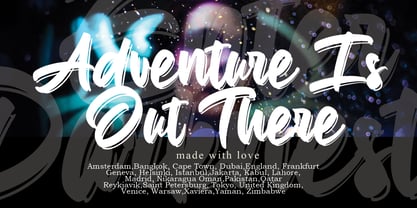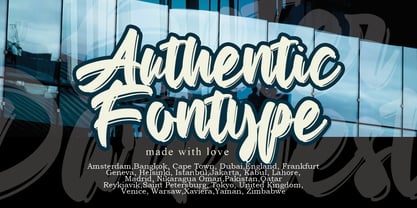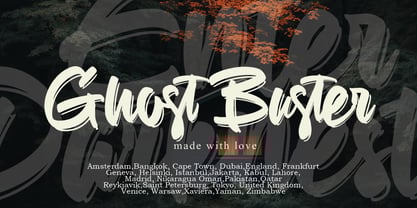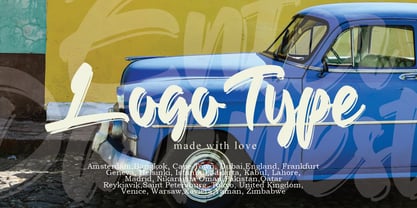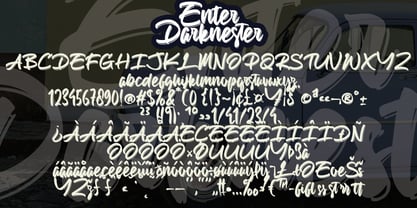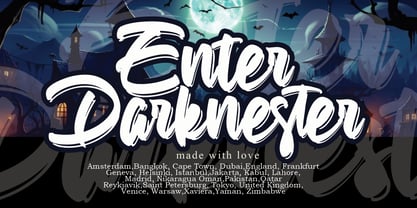
Enter Darknester
by Pineungtype misinklab
The Enter Darknester Font Family was designed by Beni Saswita and published by Pineungtype misinklab. Enter Darknester contains 1 styles.
✨ Enter Darknester– Elegant Handwritten Script Font Hatim Sakamseh is an elegant handwritten script font inspired by natural handwriting and modern calligraphy. This font has a clean, smooth, and romantic feel, perfect for premium designs that need a personal and classy touch. Ideal for branding, logos, wedding invitations, photography, social media, and creative projects. 📁 What’s Included: Uppercase & lowercase letters Numbers & punctuation Easy installation (Windows & Mac) 💍 Perfect For: Signature logos & branding Wedding invitations & stationery Photography watermark Social media quotes & posts Posters, wall art & packaging Canva & Cricut projects 🌿 Font Style Features: Natural handwritten strokes Elegant & romantic script Smooth curves & stylish flow Modern signature look Professional & clean design 📥 Instant Digital Download This is a digital product, no physical item will be shipped. You can download the files instantly after purchase. 📌 License: ✔ Personal use ✔ Commercial use ✖ Reselling or redistributing the font files is not allowed
Designers: Beni Saswita
Publisher: Pineungtype misinklab
Foundry: Pineungtype misinklab
Design Owner: Pineungtype misinklab